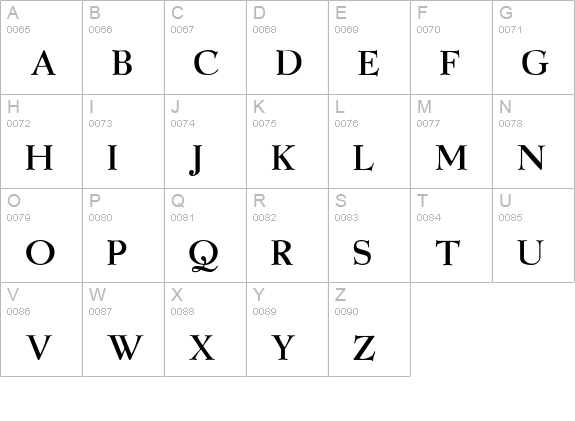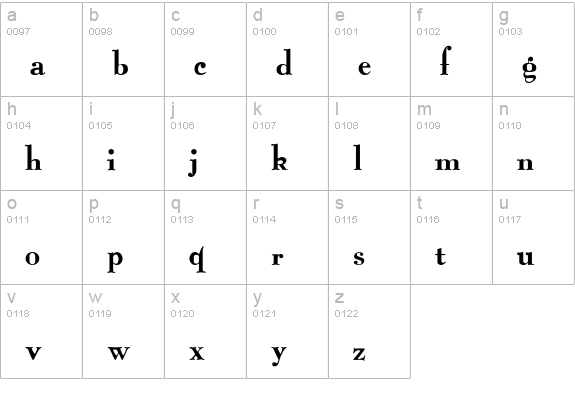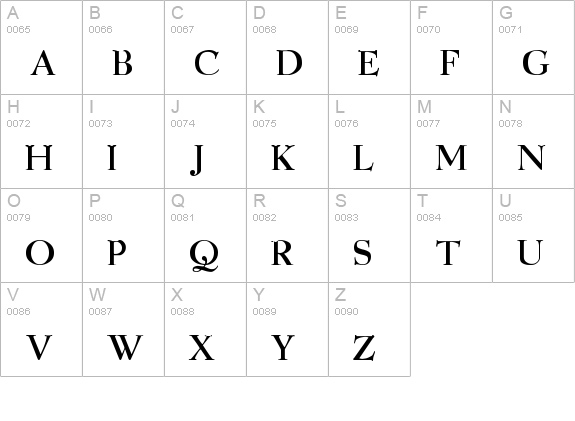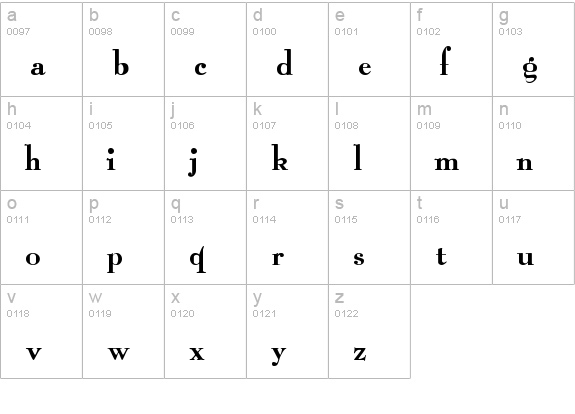
GraphicLight Font Details
GraphicLight is a modern and sleek font that effortlessly combines elegance with simplicity. Its clean lines and contemporary design make it perfect for a wide range of projects, from branding to editorial design. This versatile typeface brings a touch of sophistication to any layout while maintaining readability and clarity. The best part? GraphicLight is completely free to use! You can easily download this stunning font at FontsMarket.com and start incorporating it into your projects today. Whether you're designing a website, creating social media graphics, or working on a print publication, GraphicLight is sure to elevate your work with its stylish and professional appearance. Don't miss out on this fantastic opportunity to enhance your designs with this beautiful and free font.